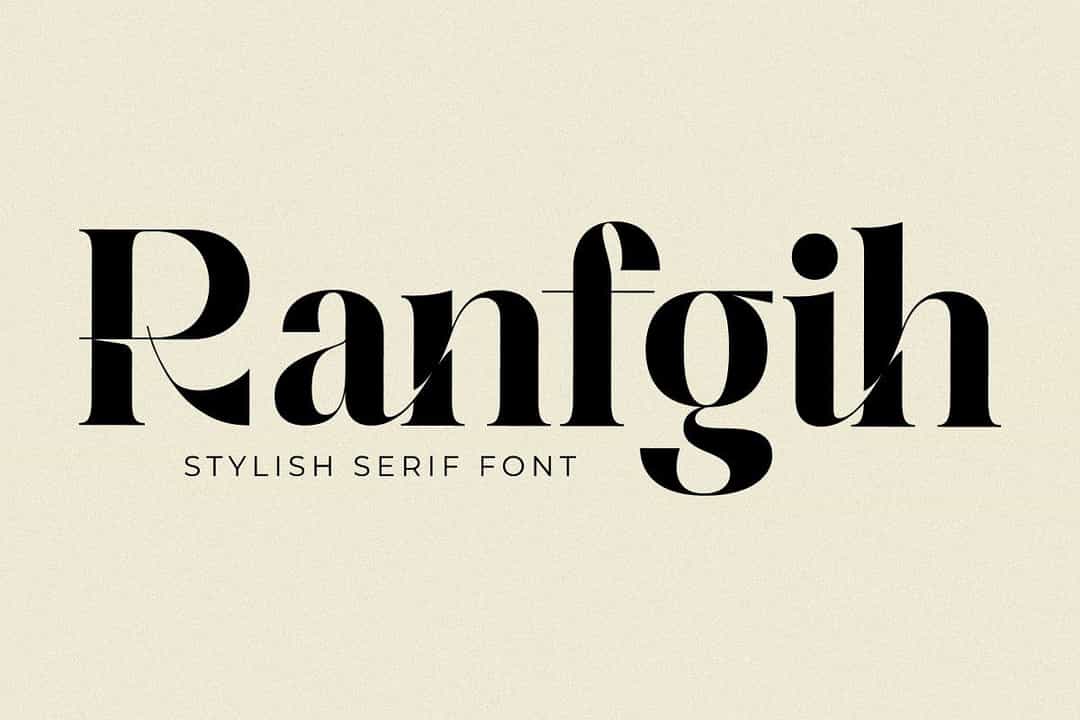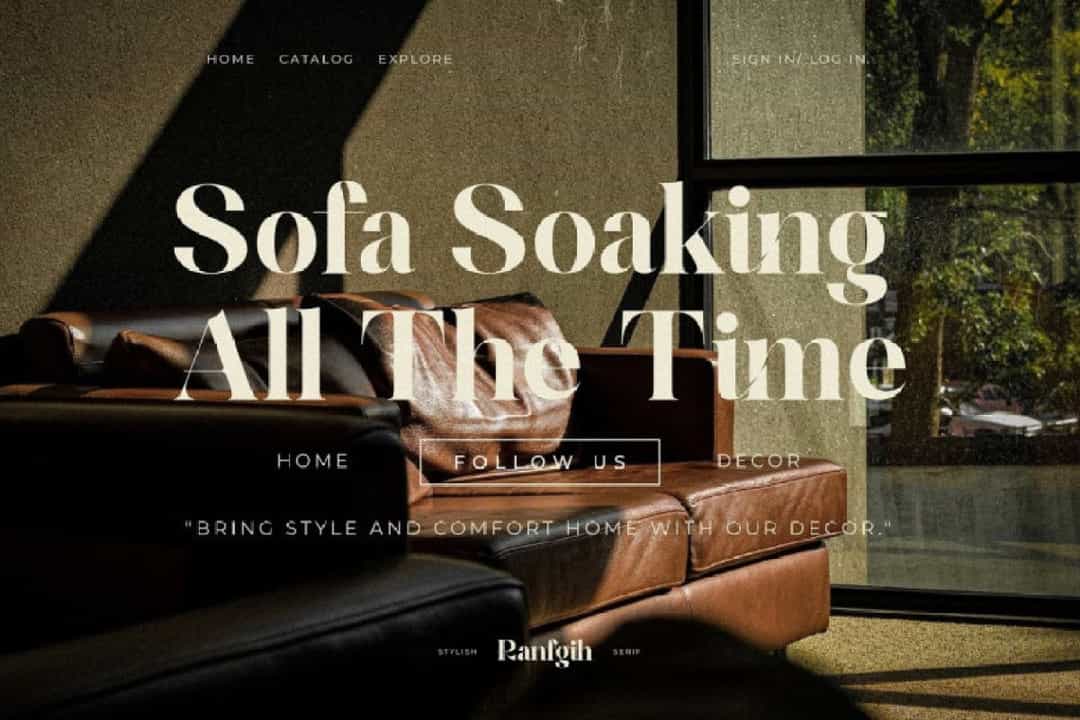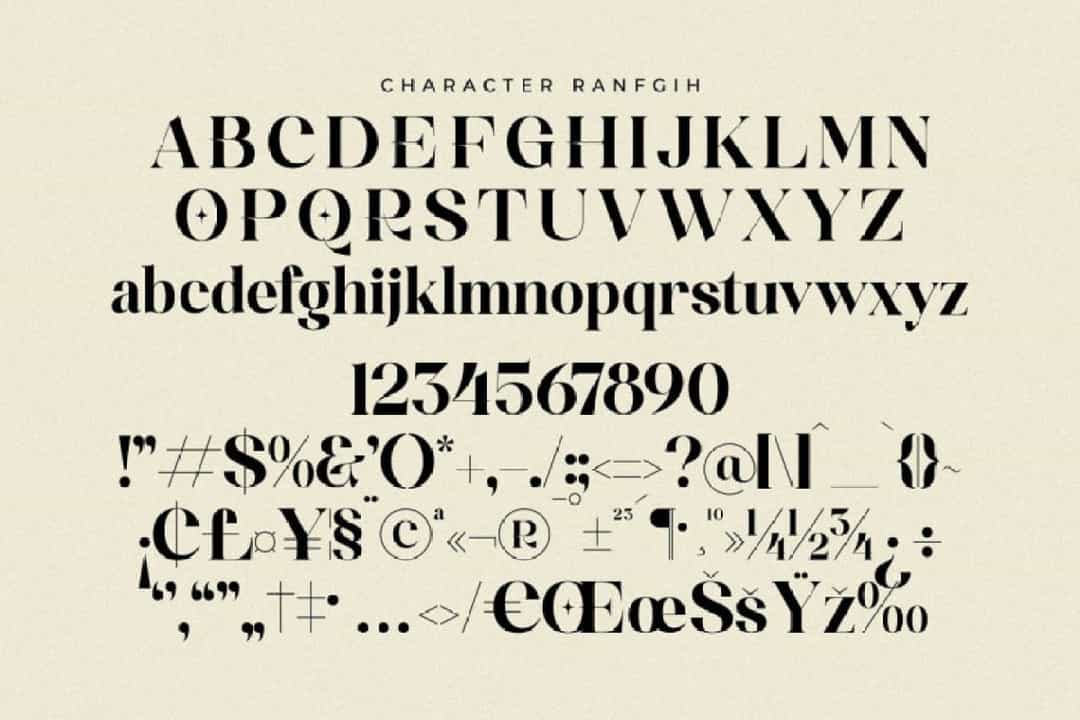
Storytype’s Ranfgih Typeface is a modern yet classic serif typeface with its distinct style and modern appearance, perfect for creating elegant logos, book, film name designs, fashion brand clothing designs, magazine articles or quotes among many other uses.